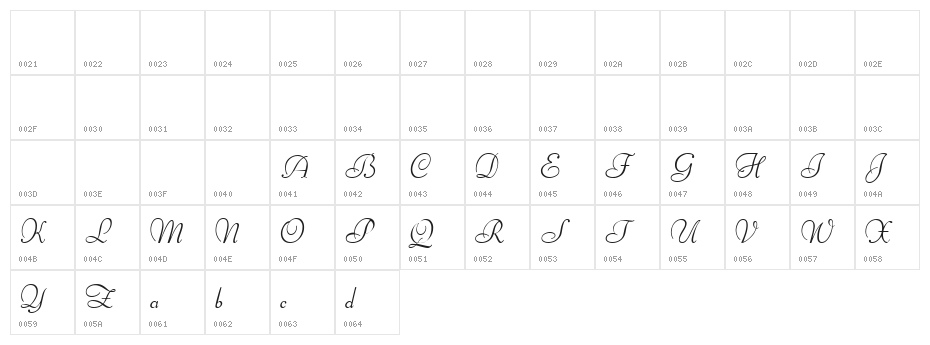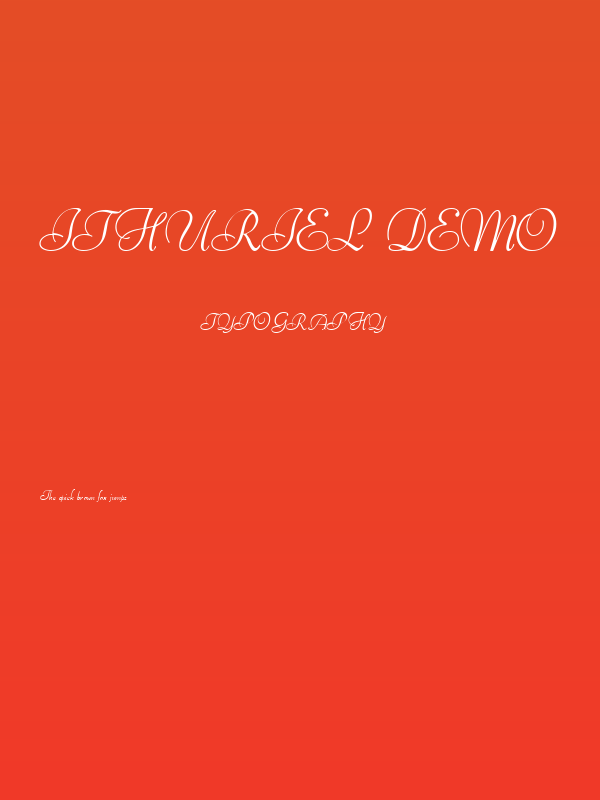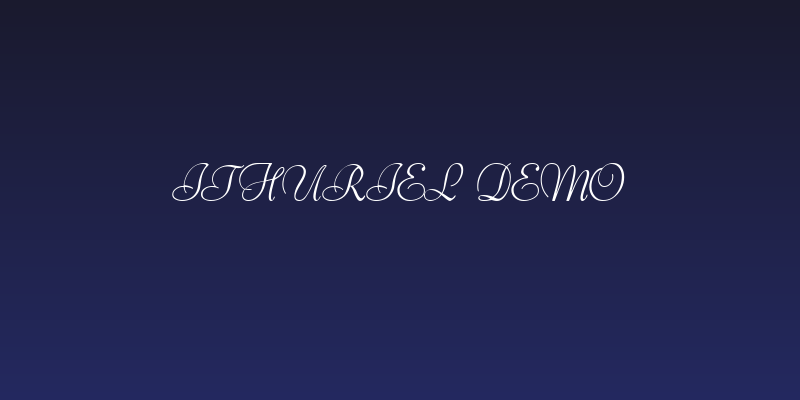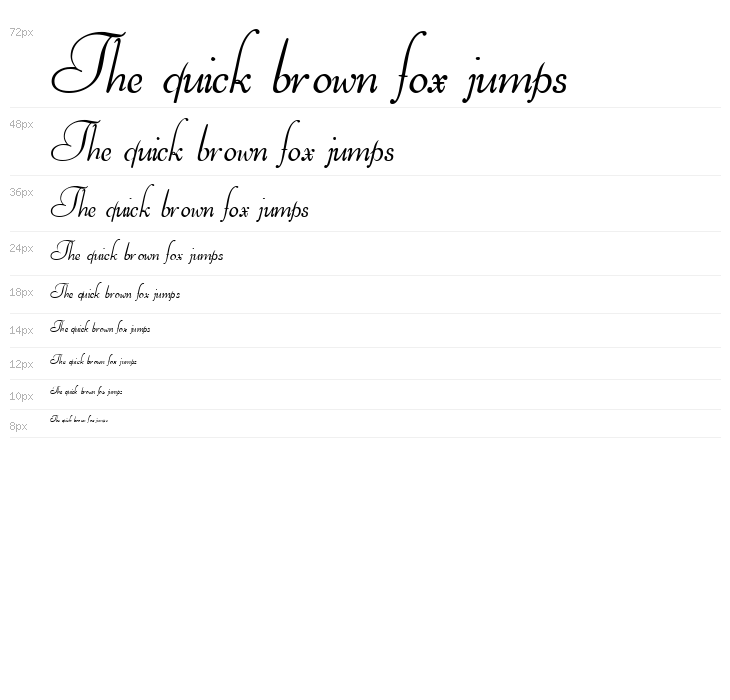
Ithuriel Demo Font
Ithuriel Demo Description
This elegant script font features flowing, interconnected letters that exude a sense of sophistication and grace. The uppercase characters are adorned with intricate swirls and loops, adding a decorative flair that is both eye-catching and refined. The lowercase letters maintain a consistent style, with smooth curves and a slight slant that enhances readability. The font's delicate strokes and moderate contrast between thick and thin lines contribute to its overall elegance. Ideal for formal invitations, branding, and any project that requires a touch of class and refinement.